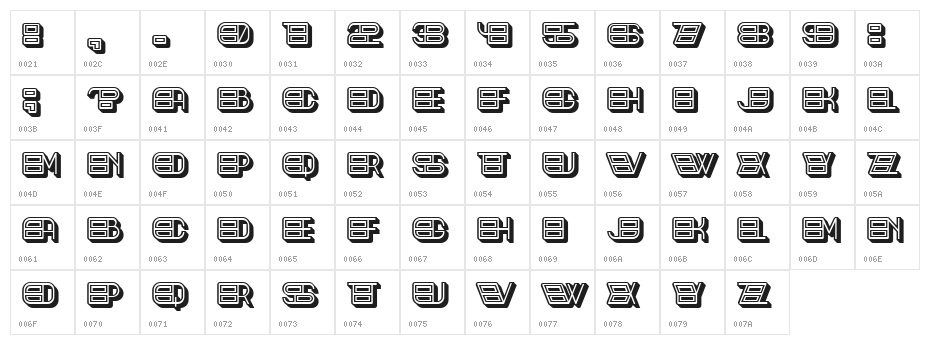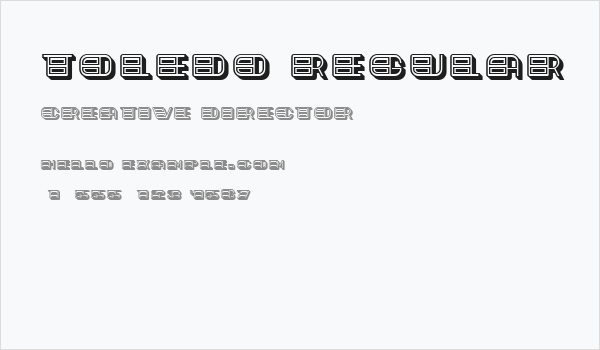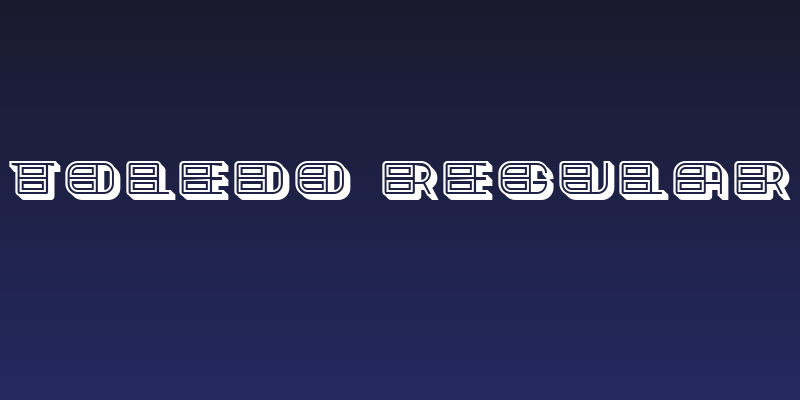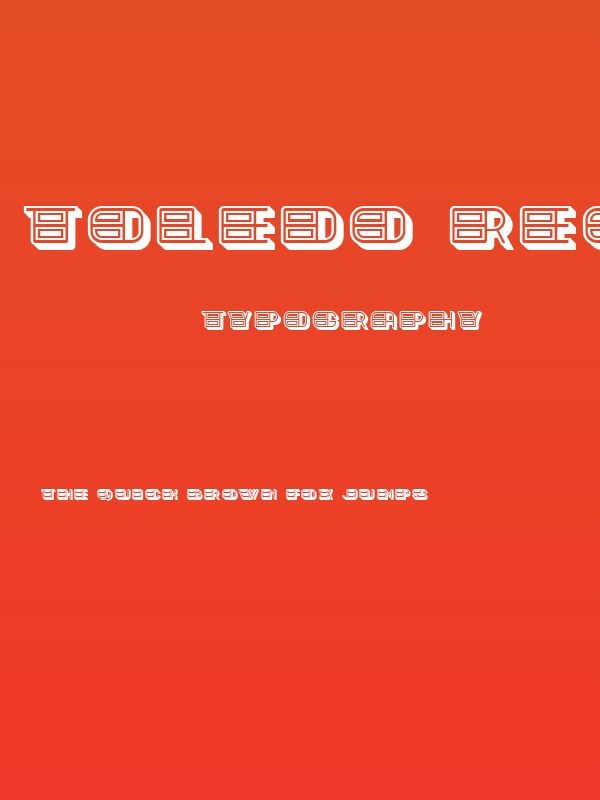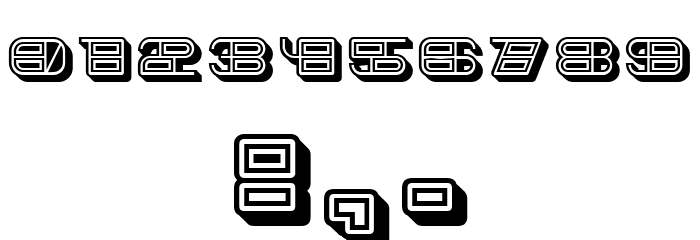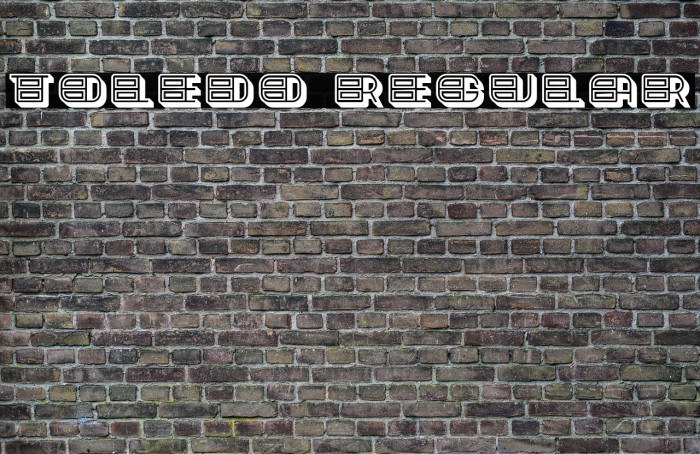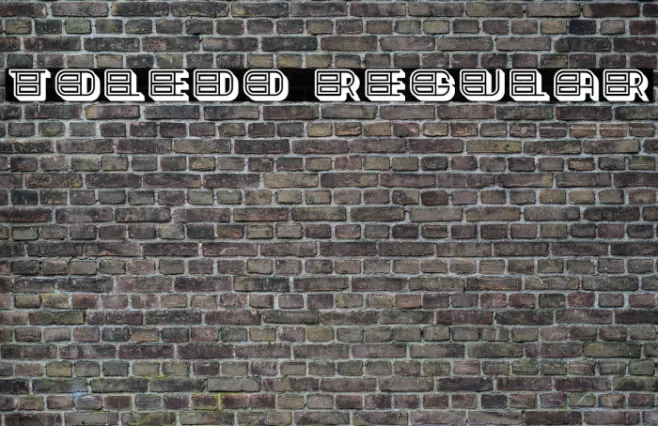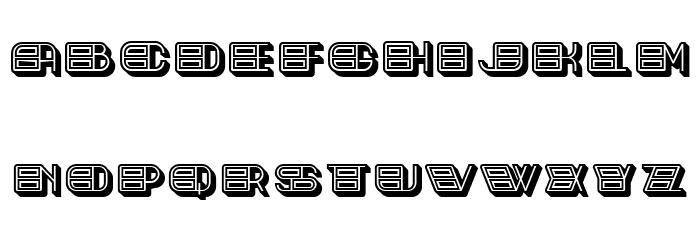
Toledo Regular Font
Toledo Regular Description
This font features a bold, geometric design with a distinct three-dimensional effect. Each character is outlined with a thick black border, creating a striking contrast against the white interior. The letters are constructed with a series of parallel lines that give them a layered appearance, reminiscent of architectural blueprints or digital displays. The overall style is modern and futuristic, with a strong emphasis on symmetry and precision. This font is highly decorative, making it ideal for eye-catching headlines or logos that require a bold statement.
| Overall Style | Modern, Futuristic |
| Proposed Projects | Ideal for projects that require a modern and impactful look, such as technology branding, video game titles, or sci-fi themed posters. |